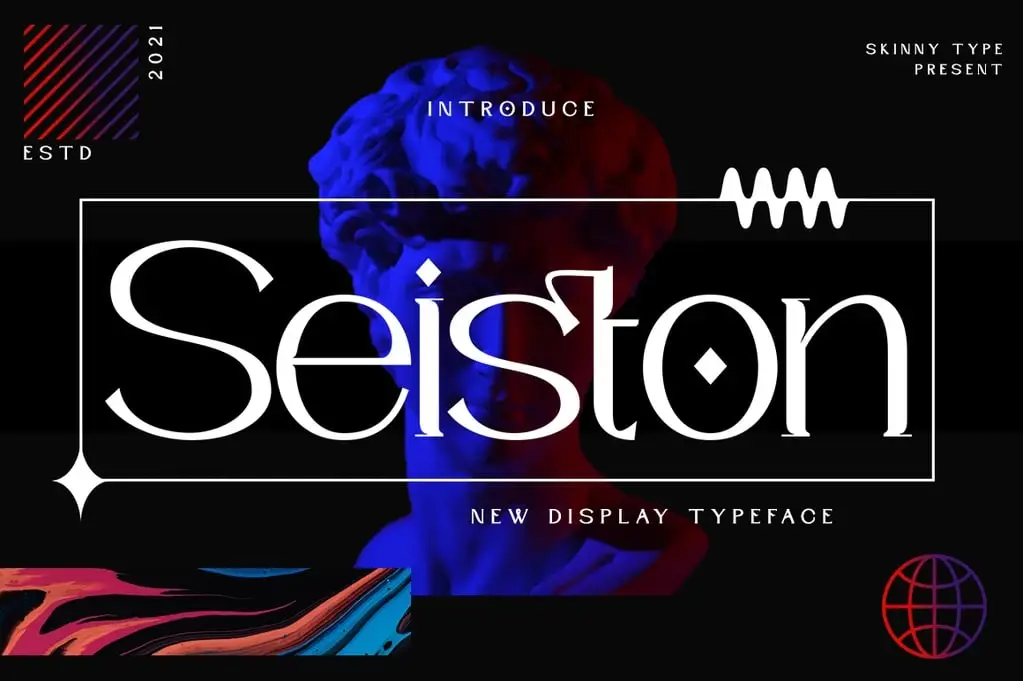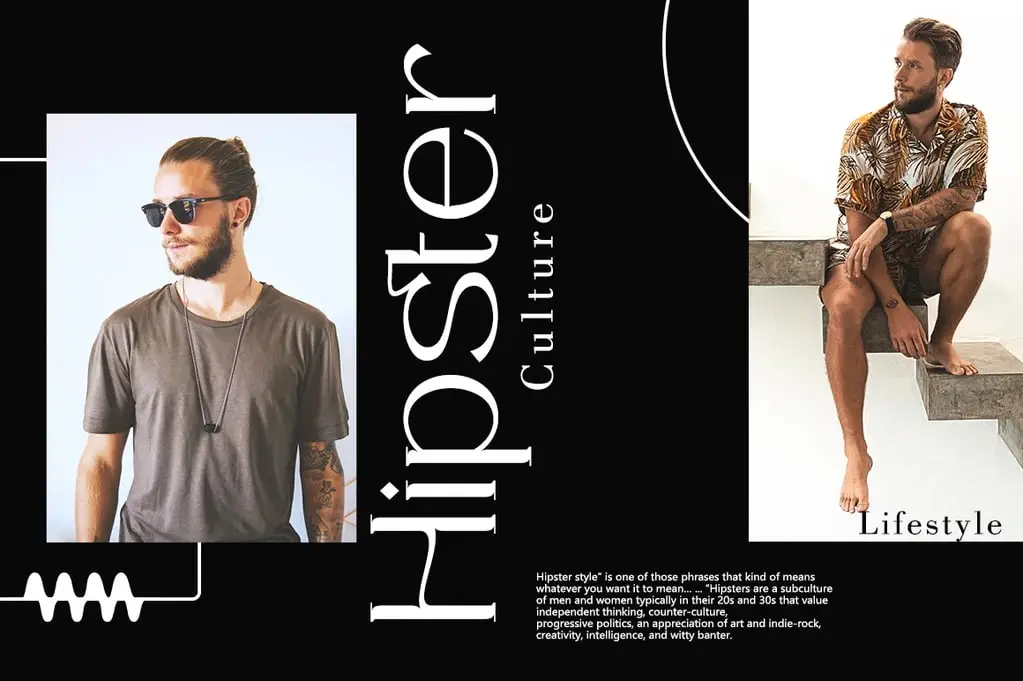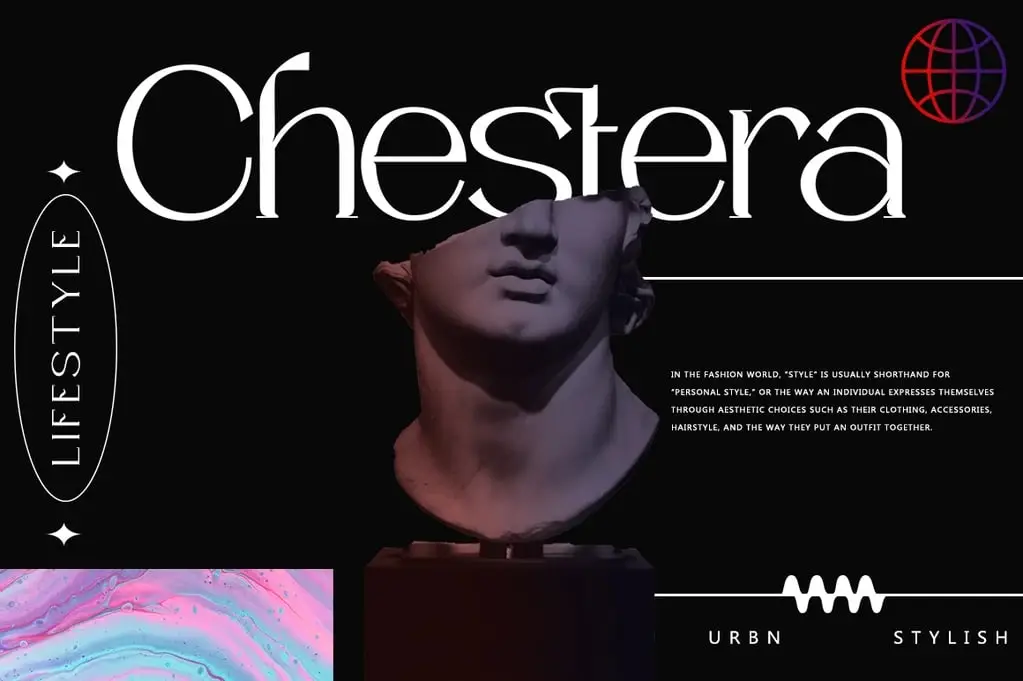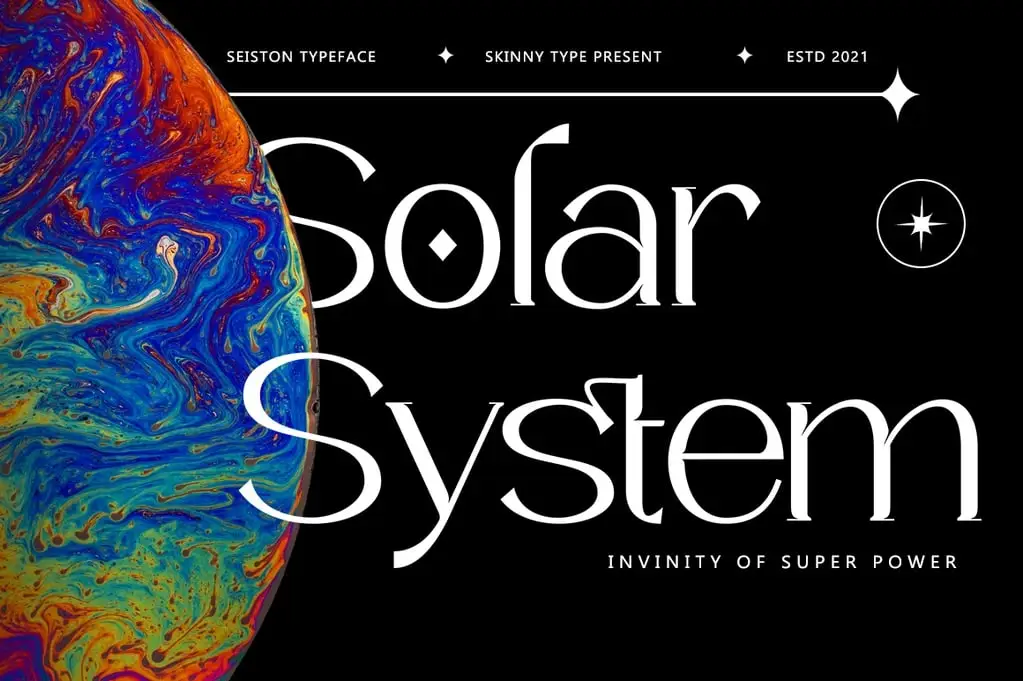
Seiston-Display Typeface
The Seiston-Display Typeface is a striking font designed to make a bold statement in your projects. With its unique character and modern aesthetic, this typeface is perfect for branding, logos, and various design applications.
• Ideal for headlines and promotional materials.
• Perfect for creating eye-catching logos.
• Use in print and digital designs for a modern look.